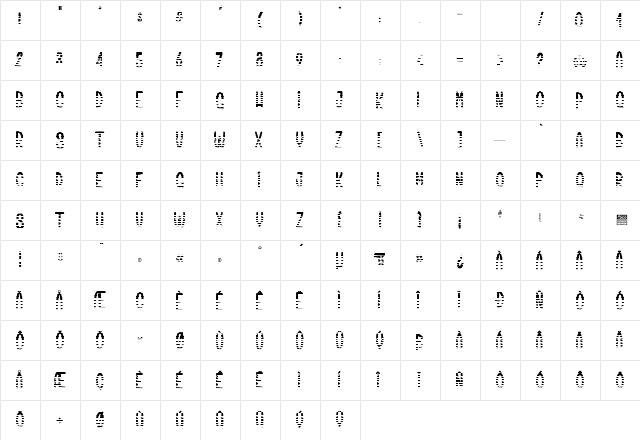
Artisanalerie 3_PersonalUseOnly Regular
Design Context for Artisanalerie 3_PersonalUseOnly Typeface
Artisanalerie 3_PersonalUseOnly is a composed and adaptable typeface that performs quietly and consistently across a wide range of design contexts.